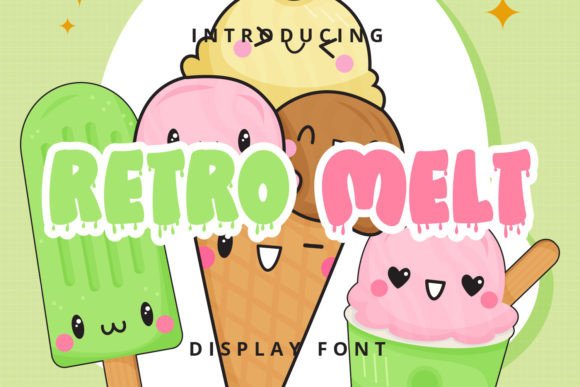
Prepare yourself to be mesmerized by Retro Melt Font, a display font that oozes coolness, fun, and playfulness. This typographic masterpiece is the secret weapon you need to add drama and emphasis to your titles and special words. Its captivating curves and energetic strokes are guaranteed to leave a lasting impression on your audience.
With Retro Melt Font, you hold the key to unlocking endless creative possibilities. Imagine crafting titles that leap off the page, grabbing attention and inciting curiosity. Think of the impact it will have on your funny videos, injecting an extra dose of laughter and amusement. The possibilities are boundless, and the results are sure to be extraordinary.
Step into a world of visual delight as Retro Melt Font transforms your designs. Its unique style and captivating presence will turn your projects into true works of art. Whether you're a seasoned designer or just starting out, this font will effortlessly elevate your creations, making them stand out from the crowd.